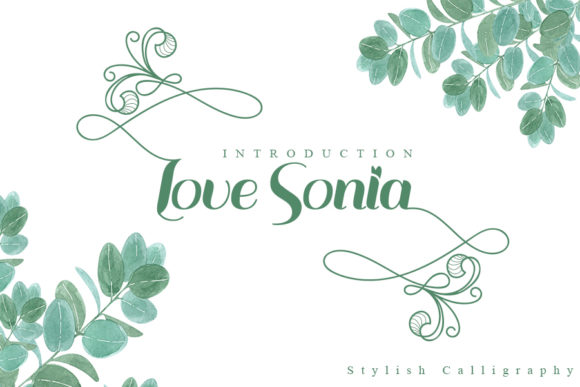
Indulge in the enchanting world of calligraphy with Love Sonia Font, a captivating script font that will ignite your creativity and leave a lasting impression on your designs.
Step into a realm of timeless elegance inspired by classic calligraphy. Love Sonia brings a touch of sophistication and charm to every project, whispering tales of love, romance, and celebration. Whether you're crafting heartfelt wedding invitations, designing enchanting stationary art, or creating eye-catching social media posts, Love Sonia empowers you to express yourself with grace and flair.
Each letter dances across the page with a fluid motion, mirroring the graceful strokes of a skilled calligrapher. Its authenticity shines through, evoking a sense of warmth and intimacy that will captivate your audience. With Love Sonia, every word becomes a work of art, leaving an unforgettable mark on the hearts and minds of those who encounter it.
Explore the boundless possibilities of Love Sonia. Create custom greeting cards that are sure to warm hearts, add a touch of elegance to your personal branding, or design stunning logos that exude timeless sophistication. The possibilities are endless, limited only by your imagination.
Don't settle for ordinary fonts that fail to inspire. Embrace the allure of Love Sonia and unlock a world of creativity where your designs come alive with passion, romance, and boundless charm. Fall head over heels in love with Love Sonia, the font that will transform your designs into captivating masterpieces.